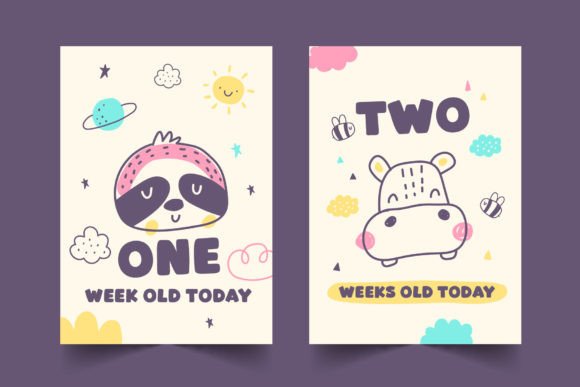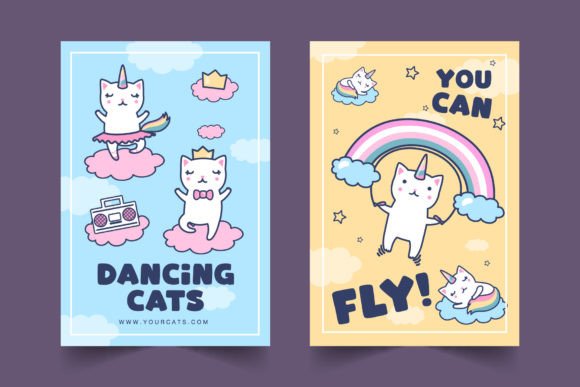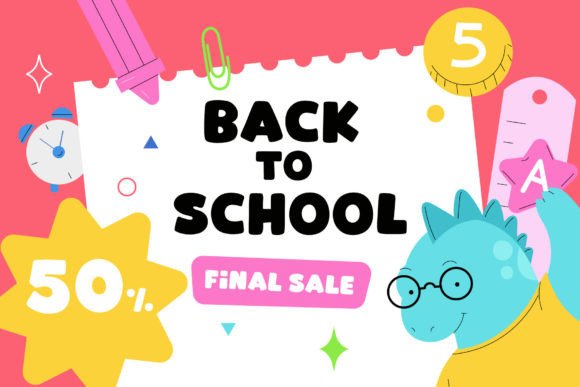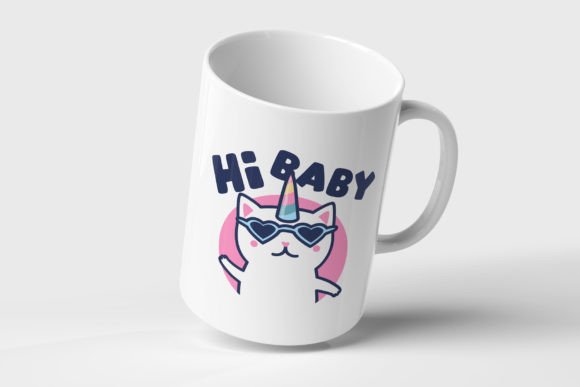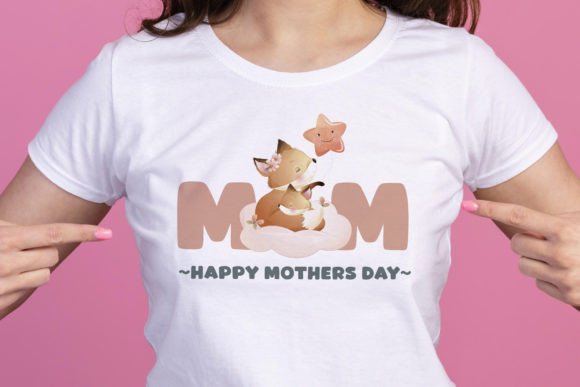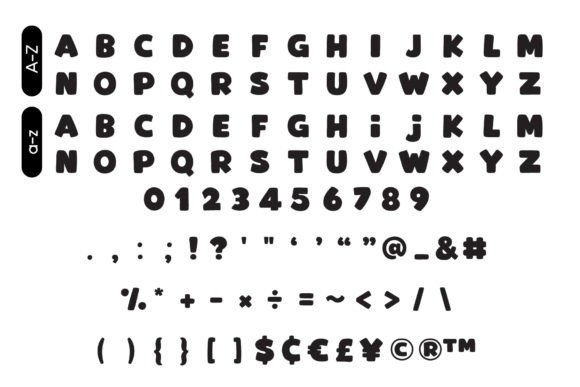
Introducing Fox Raise Font – A Breath of Fresh Air for Your Designs
Have you ever stared at a blank page, feeling stuck and uninspired, searching for that perfect spark to ignite your creativity? You know, that moment when the cursor on your screen seems to be taunting you, daring you to take a risk and try something new? That’s exactly when you need a font that’s as lively as your imagination.
Enter Fox Raise Font – a delightful and captivating display typeface designed to add a dash of personality to your design projects. With its bold, easy-to-read handwriting and charming letterforms, this font is perfect for adding a touch of whimsy to any creative endeavor. Whether you’re working on a T-shirt design, a children’s book cover, or a social media post, Fox Raise Font will instantly make your creations stand out.
Key Features of Fox Raise Font
- Font Family: Fox Raise Font is a sans-serif font family designed for digital use, offering a clean and modern look.
- Character Set: The font family includes a wide range of characters, including Latin, Cyrillic, and Greek alphabets, as well as punctuation marks and symbols.
- Font Sizes: Fox Raise Font is available in 6 weights (Thin, Light, Regular, Medium, Bold, and Black) and 3 styles (Italic, Oblique, and Roman), allowing for flexibility in design.
- Unique Characteristics: The font’s unique geometric shapes and clean lines make it suitable for use in digital products, such as apps, websites, and video games.
Designer Review: Fox Raise Font
As a designer, I was excited to try out the Fox Raise font. Overall, I found it to be a solid, yet unremarkable choice for digital typography.
- Legibility: Fox Raise is incredibly easy to read, making it perfect for body text or any situation where readability is key.
- Flexibility: The font comes in a range of weights and styles, giving designers plenty of options for customization.
- Neutral aesthetic: Fox Raise’s clean and modern design makes it suitable for a wide range of applications, from corporate to creative projects.
- Lack of personality: While Fox Raise is easy to read, it’s also incredibly generic – it doesn’t have a unique voice or character that sets it apart from other fonts.
- No standout features: Fox Raise doesn’t have any particularly notable or innovative design elements that would make it stand out in a crowded font market.
While Fox Raise is a solid choice for digital typography, it’s not going to blow anyone away. It’s a safe, reliable option that’s perfect for projects where you want a clean, modern look without any bold statements. If you’re looking for something more exciting or unique, you may want to consider other options. But if you need a dependable font for everyday use, Fox Raise gets the job done.
Getting the Most Out of Fox Raise Font
For optimal results, use Fox Raise Font in bold or italic styles to create a striking visual effect. You can also pair it with other fonts to create a unique typography combination.
Fox Raise Font is ideal for use in headings, titles, and captions. It’s particularly effective in designs that require a bold and eye-catching font to grab attention.